Font Pixalat
What is the reason this  Font gets Pixalat? Is it a nature of the font or some other reason.
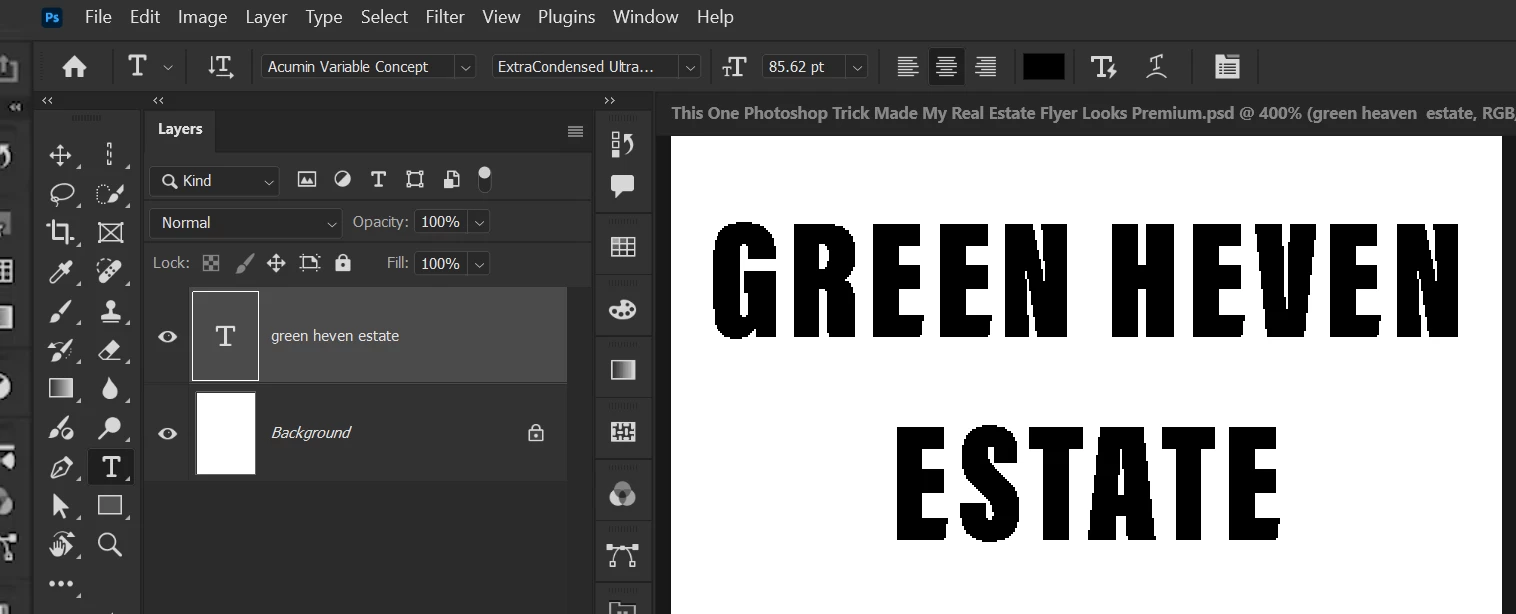
You are zoomed to 400% with no anti-aliasing on the characters. Although text is vector, in Photoshop, it is displayed using the pixels of the image and therefore has options on how to smooth the edges.
Select the text and go to the bottom of the character panel. Then set the text to Sharp, Crisp, Strong or Smooth, basically anything but 'None' which looks like it is set at present.
You are zoomed to 400% with no anti-aliasing on the characters. Although text is vector, in Photoshop, it is displayed using the pixels of the image and therefore has options on how to smooth the edges.
Select the text and go to the bottom of the character panel. Then set the text to Sharp, Crisp, Strong or Smooth, basically anything but 'None' which looks like it is set at present.